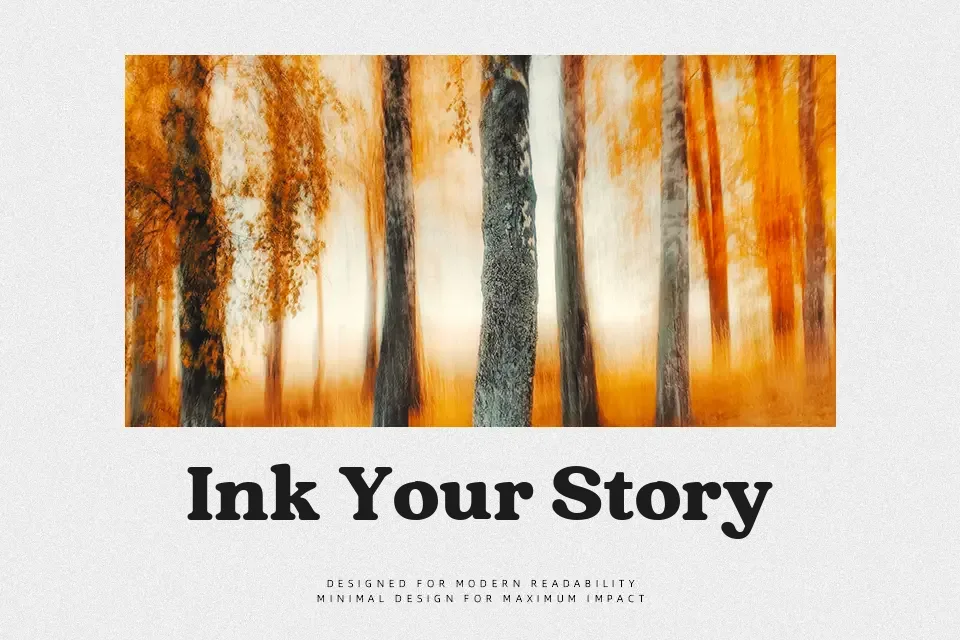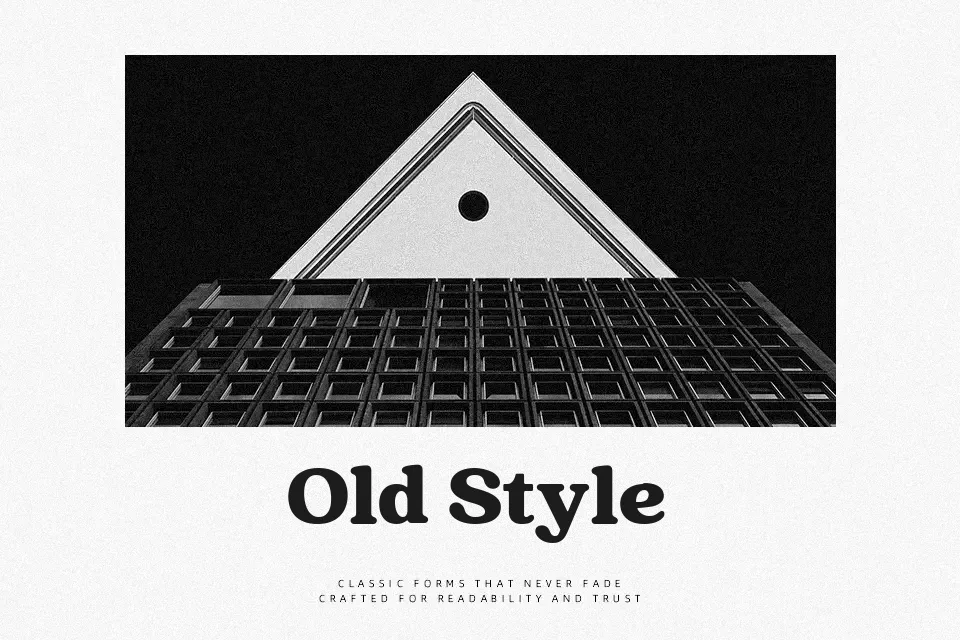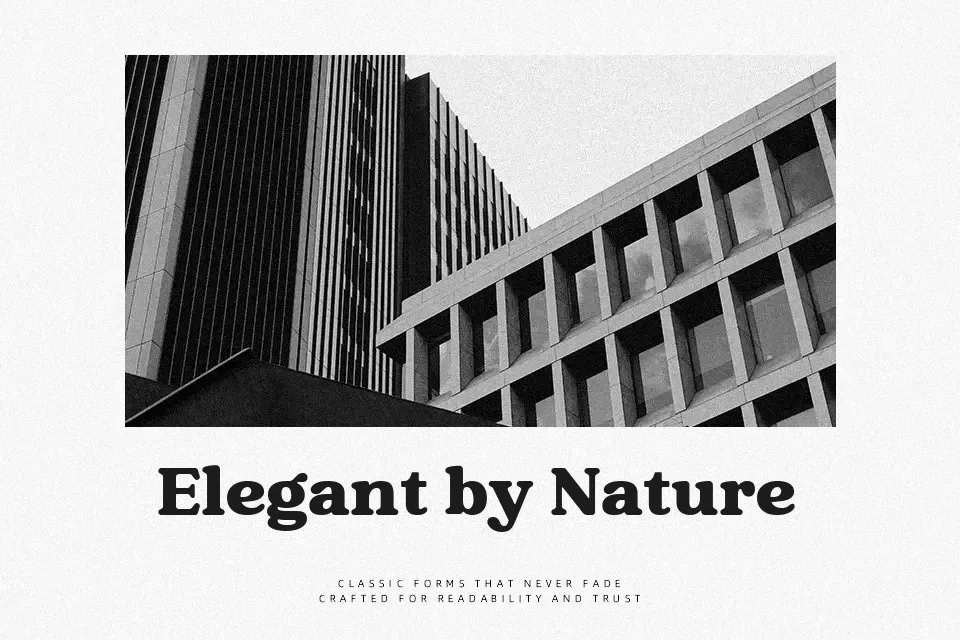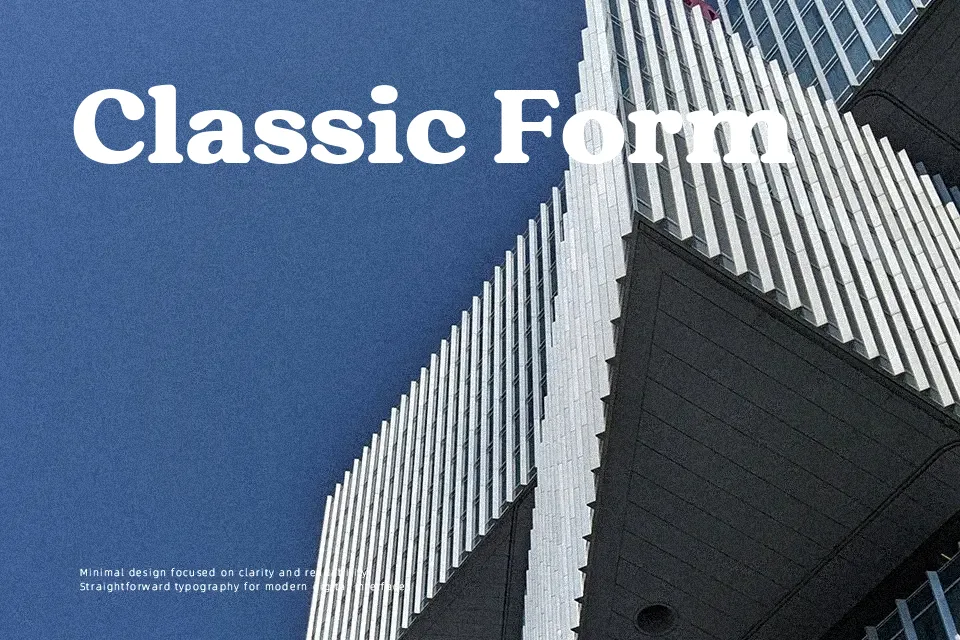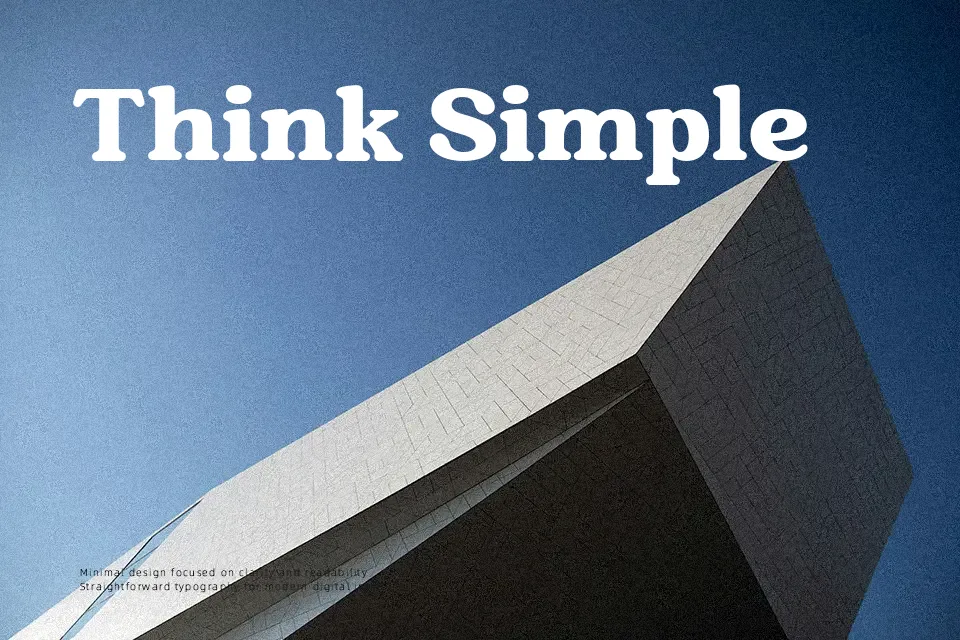
Raspberie Font
A short product label or poster headline benefits immensely from the refined structure of Raspberie Font. The letterforms blend pronounced stroke contrast with smooth, decorative terminals, creating a distinct retro-modern serif appearance. The spacing helps maintain clarity in larger headlines, allowing the elegant curves to stand out naturally. Because of its specialized proportions and dynamic stroke weights, this typeface thrives in boutique branding, luxury packaging, and bold magazine titles. However, the decorative details become less effective at smaller sizes, making it less suitable for long paragraphs or dense editorial layouts where continuous reading comfort is a priority.
Perfect for branding, headline, and logo, with a classic and decorative style.